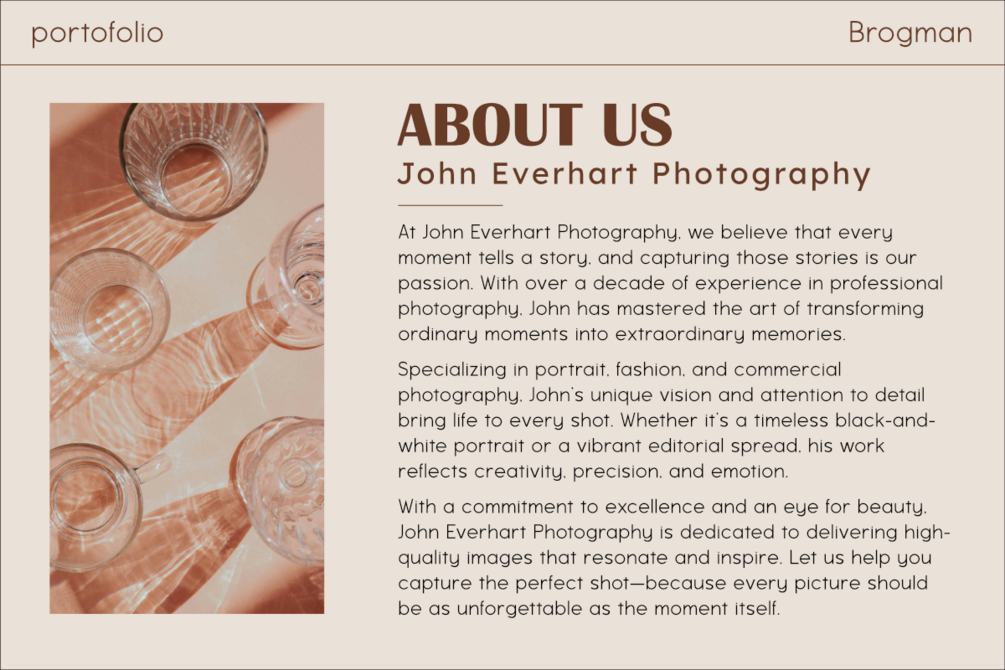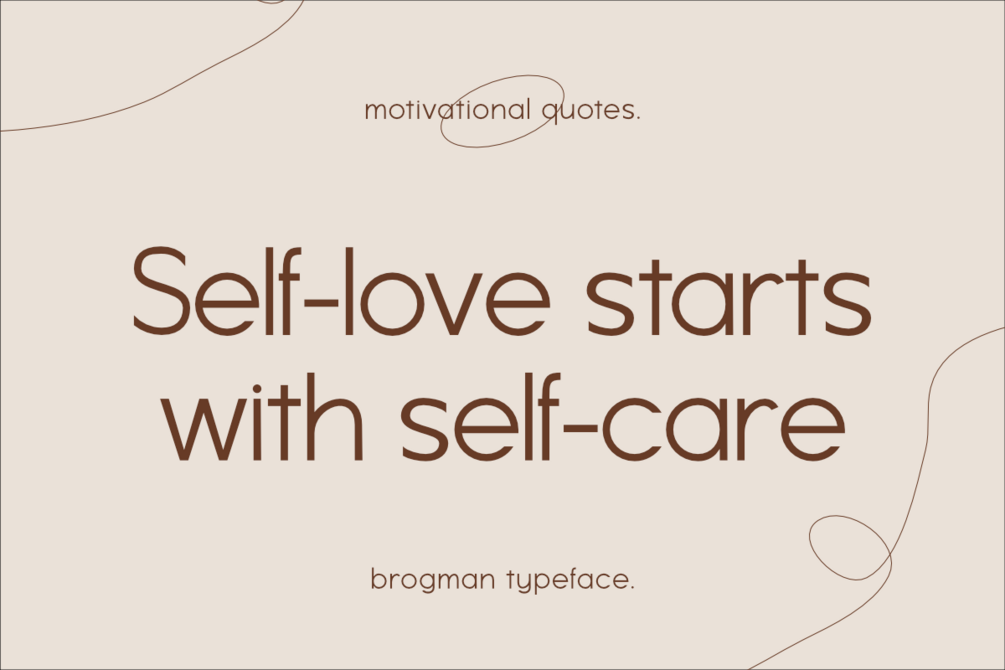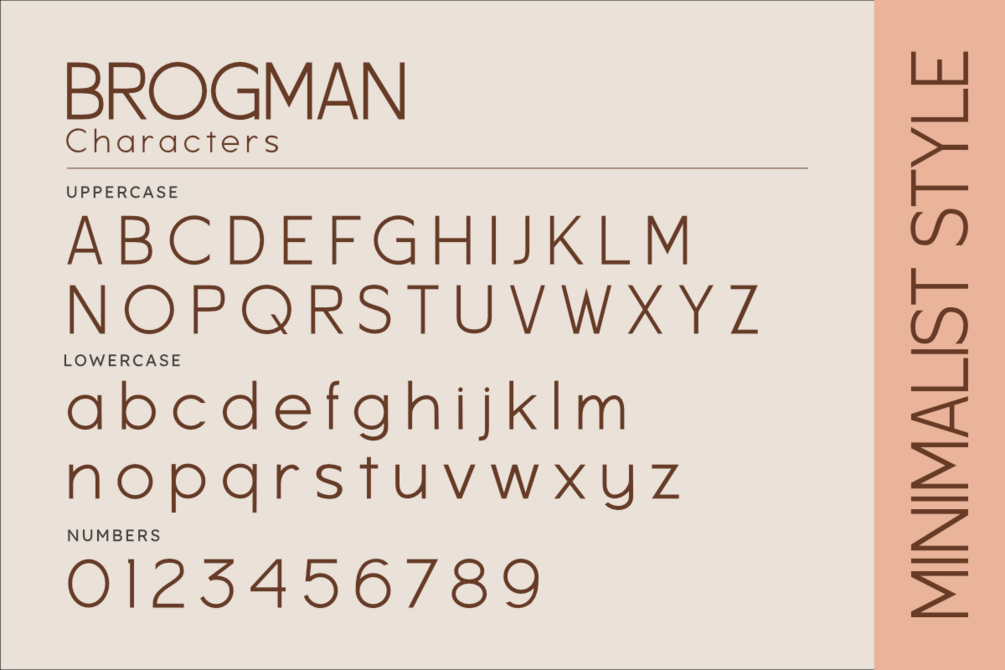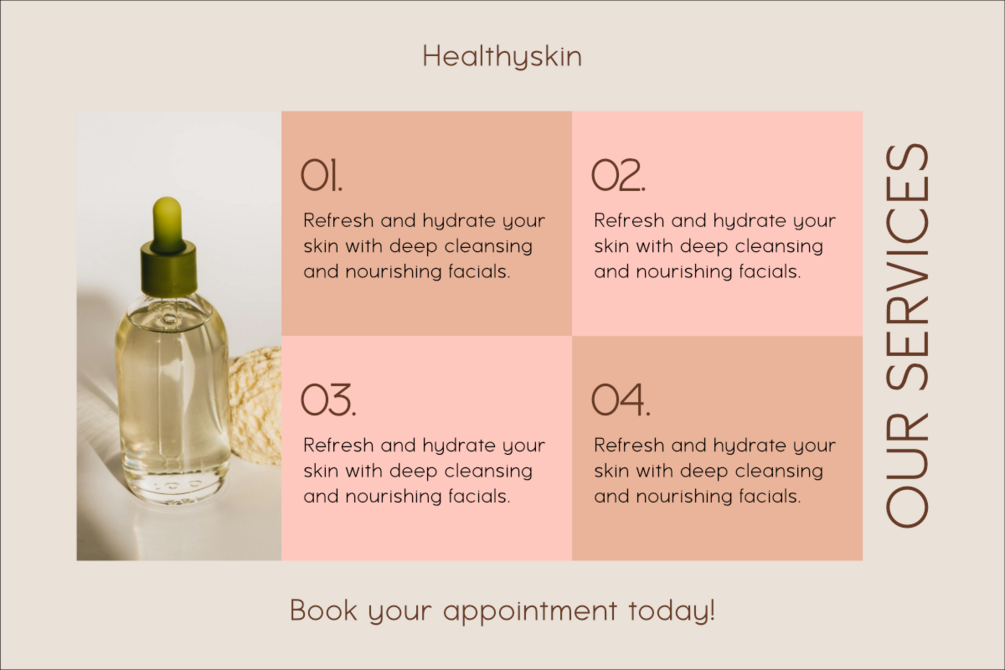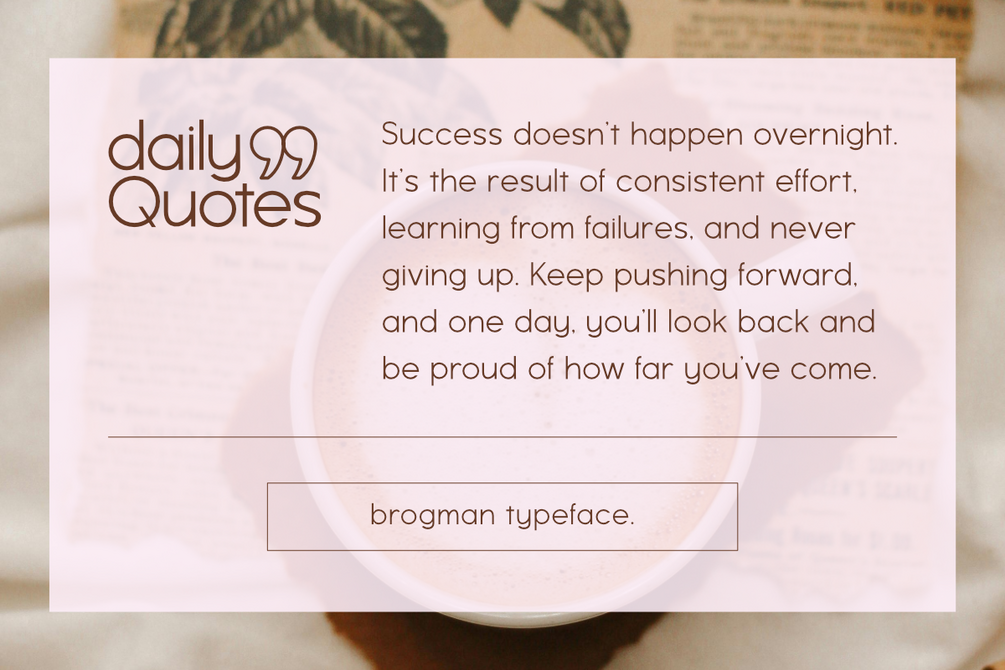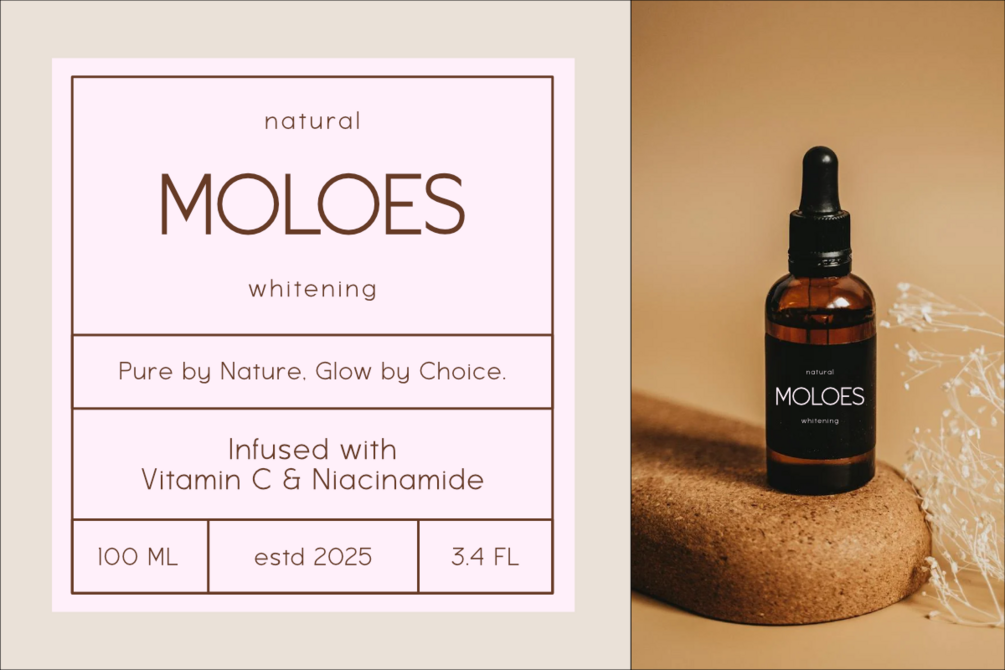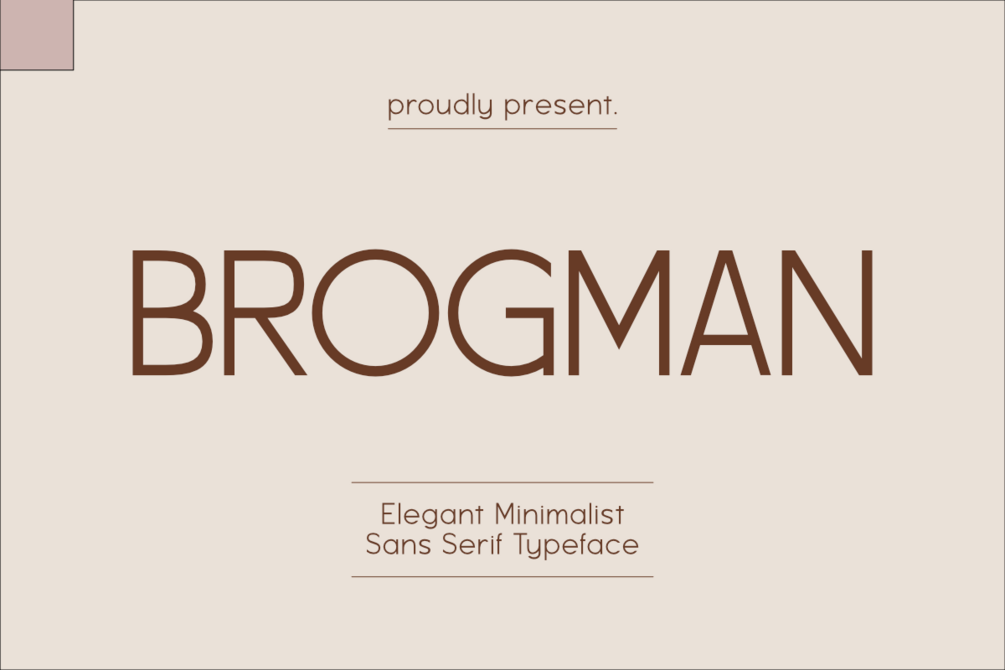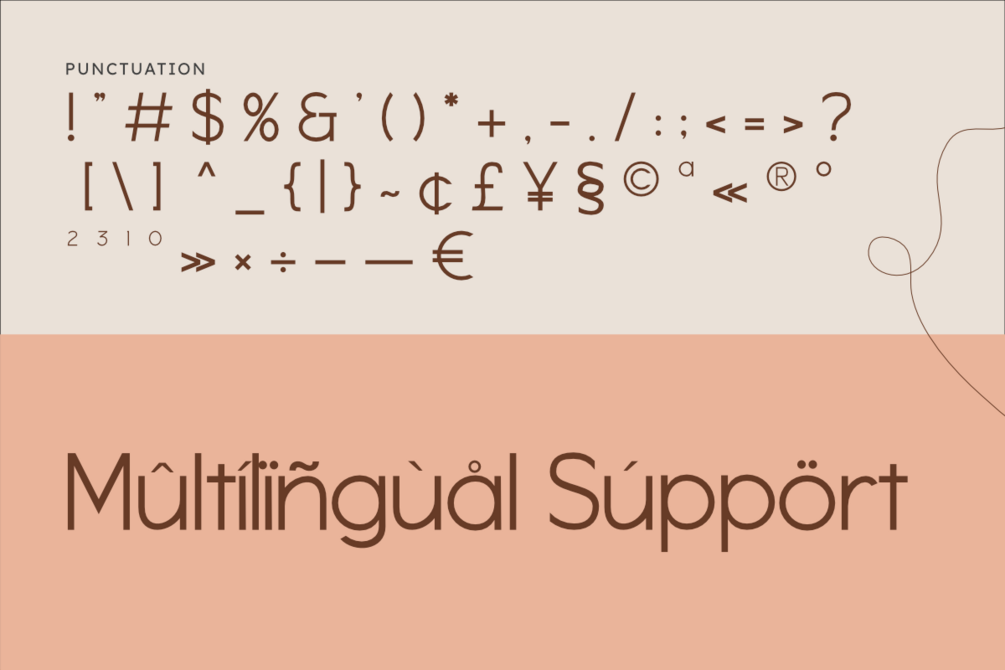
Brogman - Fashionable Sans Serif
Brogman is an elegant minimalist font. sans serif font inspired by simple minimalist style typography. Brogman is a perfect choice for any creative endeavor, chic, lifestyle design such as logos, advertisements, watermarks on photography, stationery, branding projects, displays and magazines, invitations, corporate brands, product design, labels, business projects and many other projects with an elegant touch.